Top 10 best serif fonts popularly used in 2022
A serif font is a font with small strokes or extensions at the end of its longer strokes. Serifs have their roots in ancient Roman square capitals, and became widely used with the advent of the printing press. They are often used in books, magazines, and newspapers, as serif fonts are considered easier to read in long-form use cases. If you are looking for the best serif font for your designs then you can use the serif fonts in our list.
Grofana Serif Font
Grofana is a beautiful serif font. This font perfectly made to be applied especially in logo, and the other various formal forms such as invitations, labels, logos, magazines, books, greeting / wedding cards, packaging, fashion, make up, stationery, novels, labels or any type of advertising purpose.
Portent Serif Font
This modern serif typeface features serifs. Perfect for gorgeous logos & titles, Portent will pair beautifully with many fonts and work well with whatever project you're working on.
Containing full set of punctuation and numerals Include Alternate, Swash & stylistic set Typeface. An broader version of the font for a Portent different feel. Webfonts and OTF and TTF files for all fonts are included.
Qairero - Serif Font
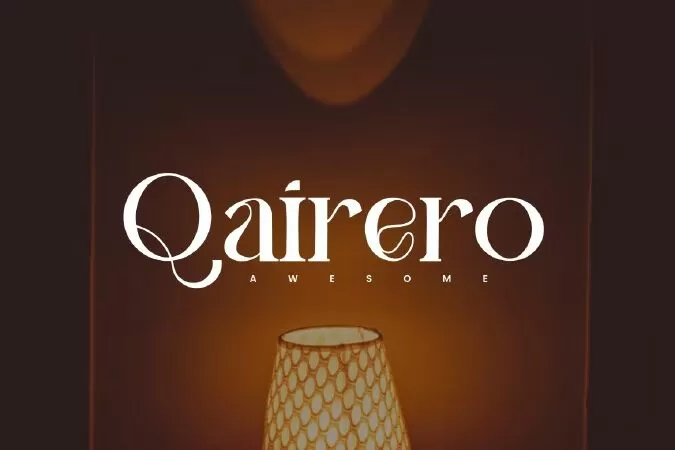
Introducing Qairero, an elegant, simple, and beauty serif font. Its unique and lovely feel. So perfect for you who needs a typeface for logo designs, magazine, social media, brochure, and many more.
Modern Serif Font
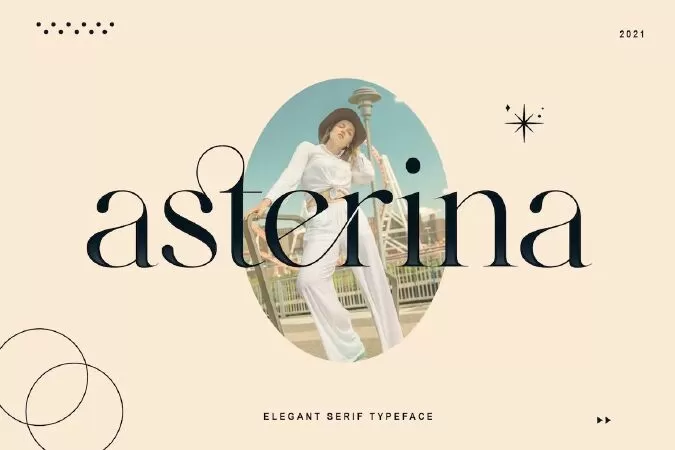
asterina is a stylish and modern serif typeface with beautiful ligatures. It can be used for editorial work, logo design, clothing branding, product packaging, magazine headers, or simply as a stylish overlay to any background image.
Alchemist Serif Font